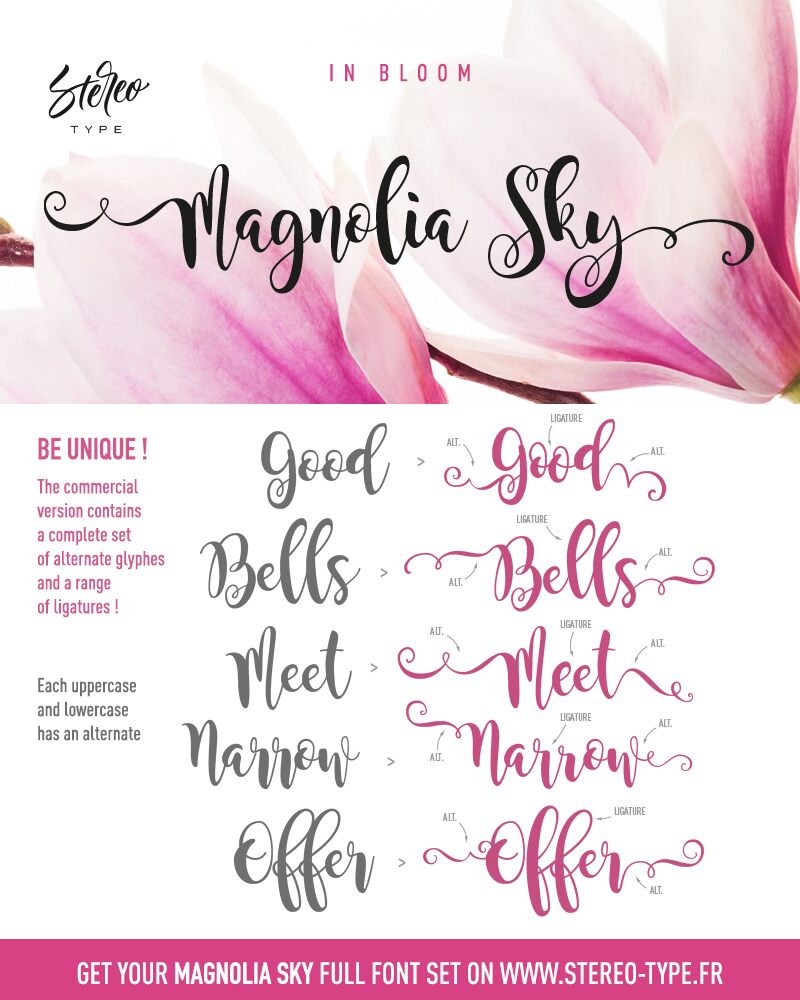
Magnolia Sky is a captivating calligraphy font designed by Clement Nicolle of StereoType. This condensed typeface effortlessly combines fluid, organic strokes with a touch of elegance. The distinctive handwritten flourishes and playful ligatures create a sense of movement and artistry, making it an ideal choice for a wide range of design applications.
From eye-catching display typography to delicate wedding invitations, Magnolia Sky's versatility shines through. Its refined yet approachable aesthetic lends itself beautifully to branding, packaging, and editorial designs, where it can add a touch of sophistication and charm. The font's condensed width allows for seamless integration into layouts, making it a versatile tool for designers seeking to elevate their projects with a unique, handcrafted aesthetic.
It contains a complete set of alternate glyphes and a range of ligatures to create your own style !